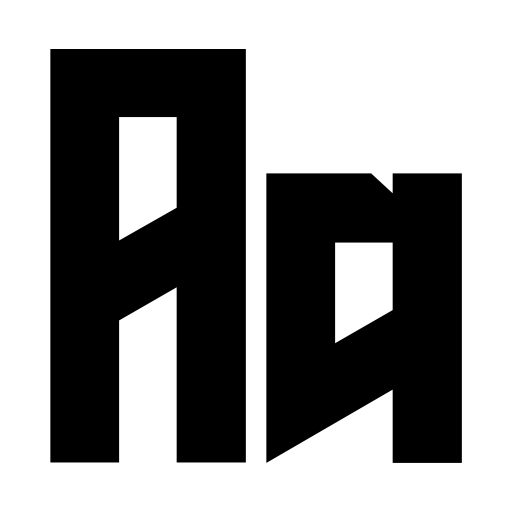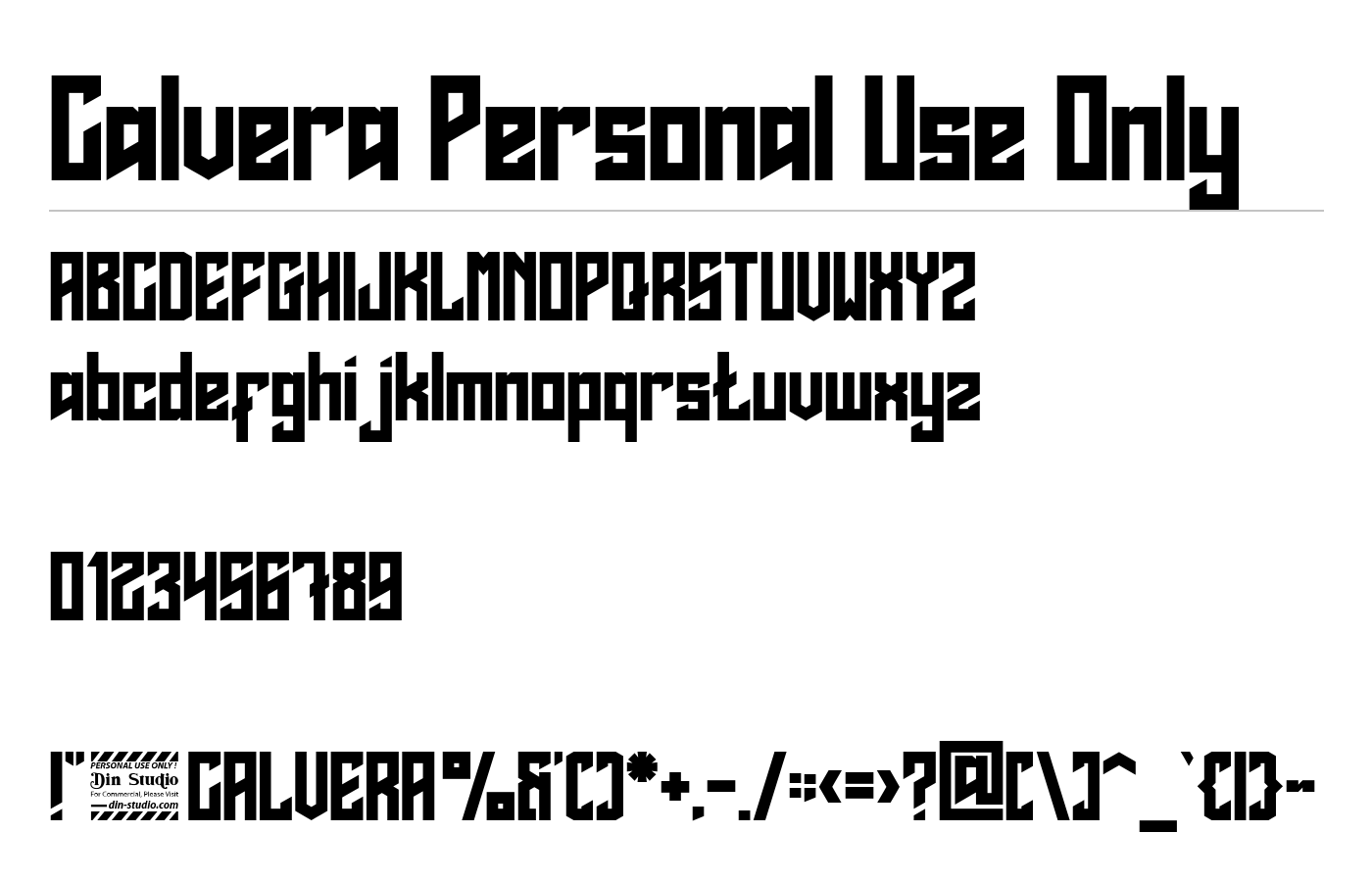
Calvera Personal Use Only is a bold, condensed sans serif font with a distinctive geometric and angular design, giving it a modern, edgy feel. Its high stroke contrast and sharp, blocky letterforms make it ideal for striking display purposes like headlines, logos, and posters where a strong, futuristic vibe is desired. This font works best in creative branding and digital projects that seek to convey boldness and innovation.
Calvera Personal Use Only Font
About Calvera Personal Use Only Font